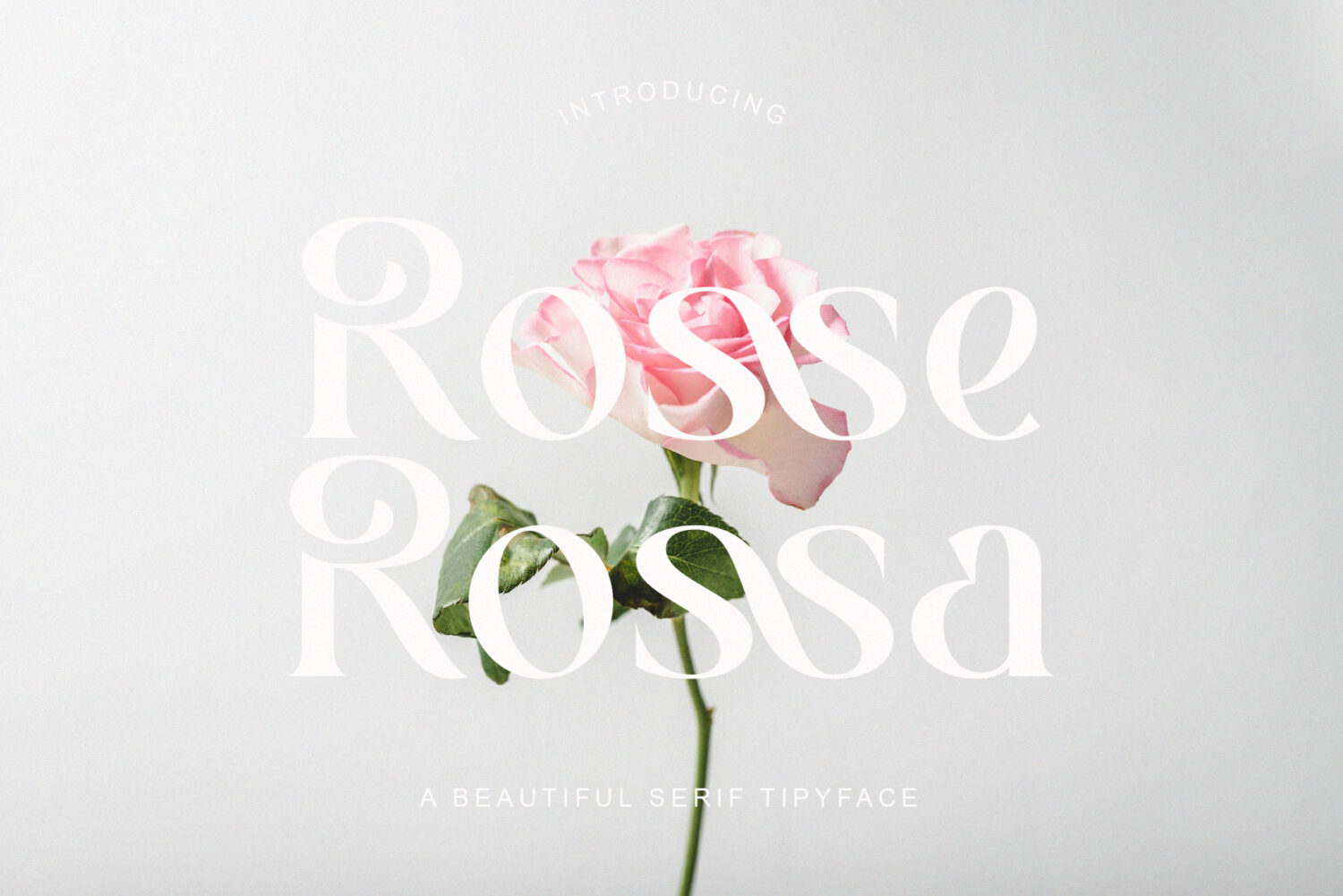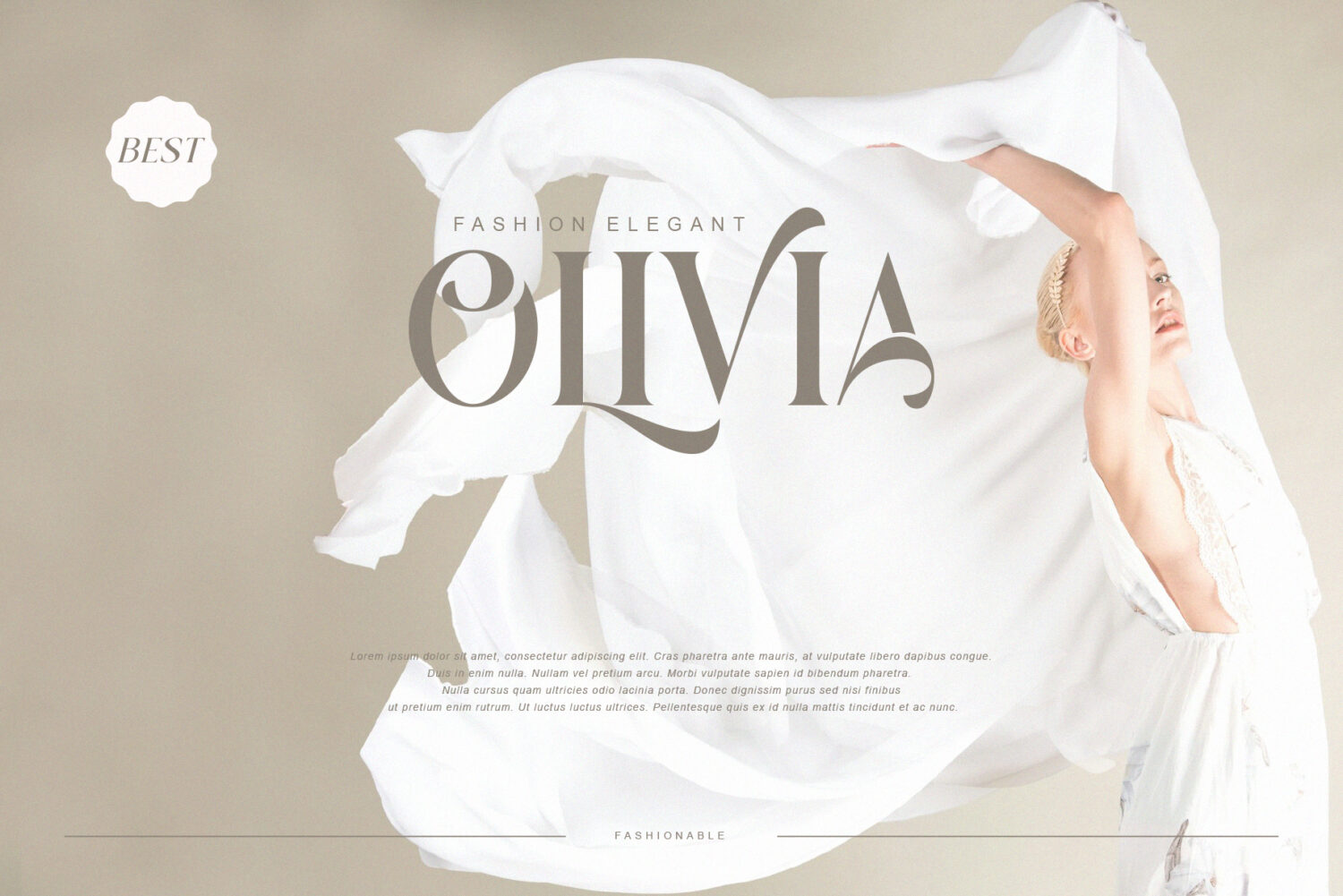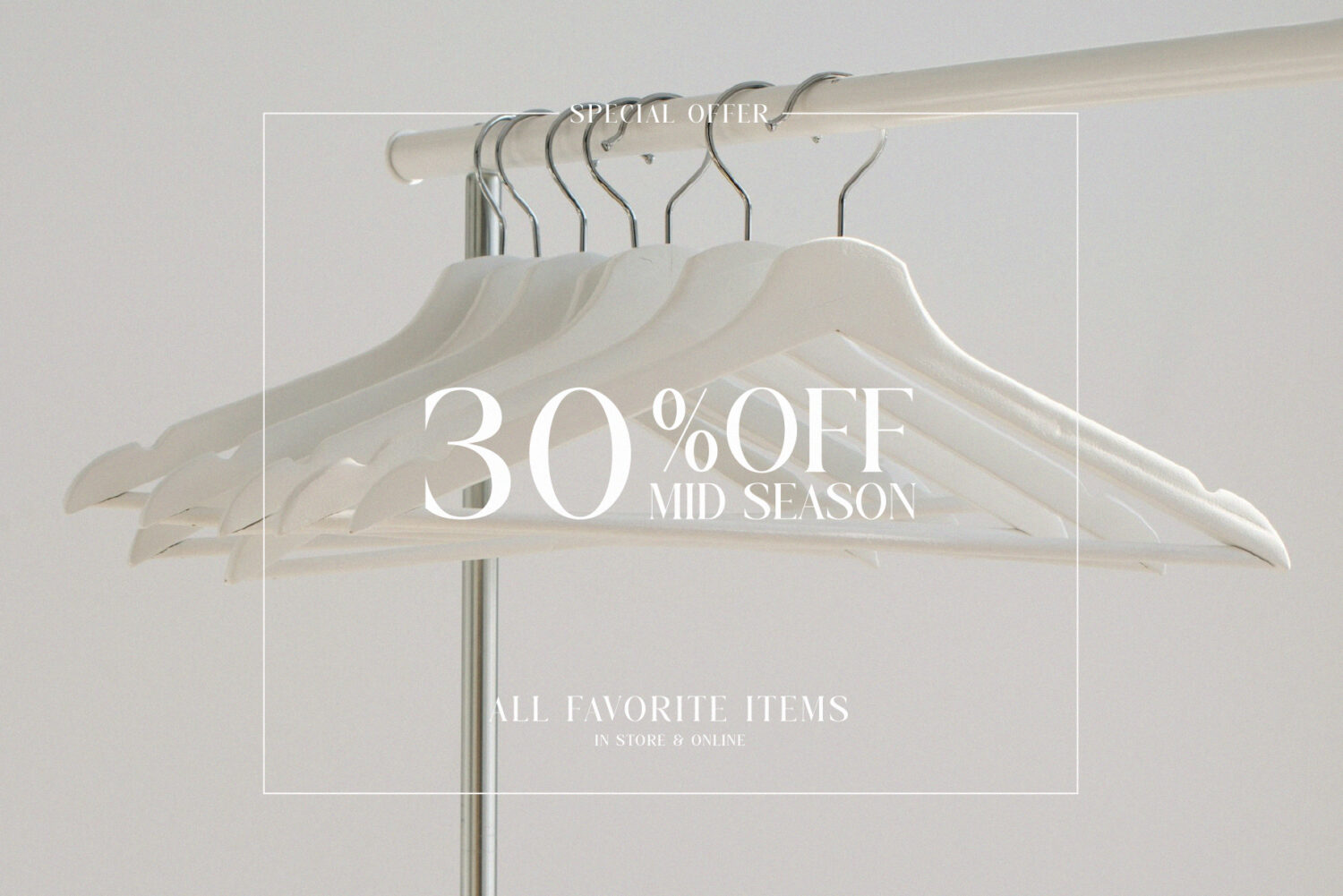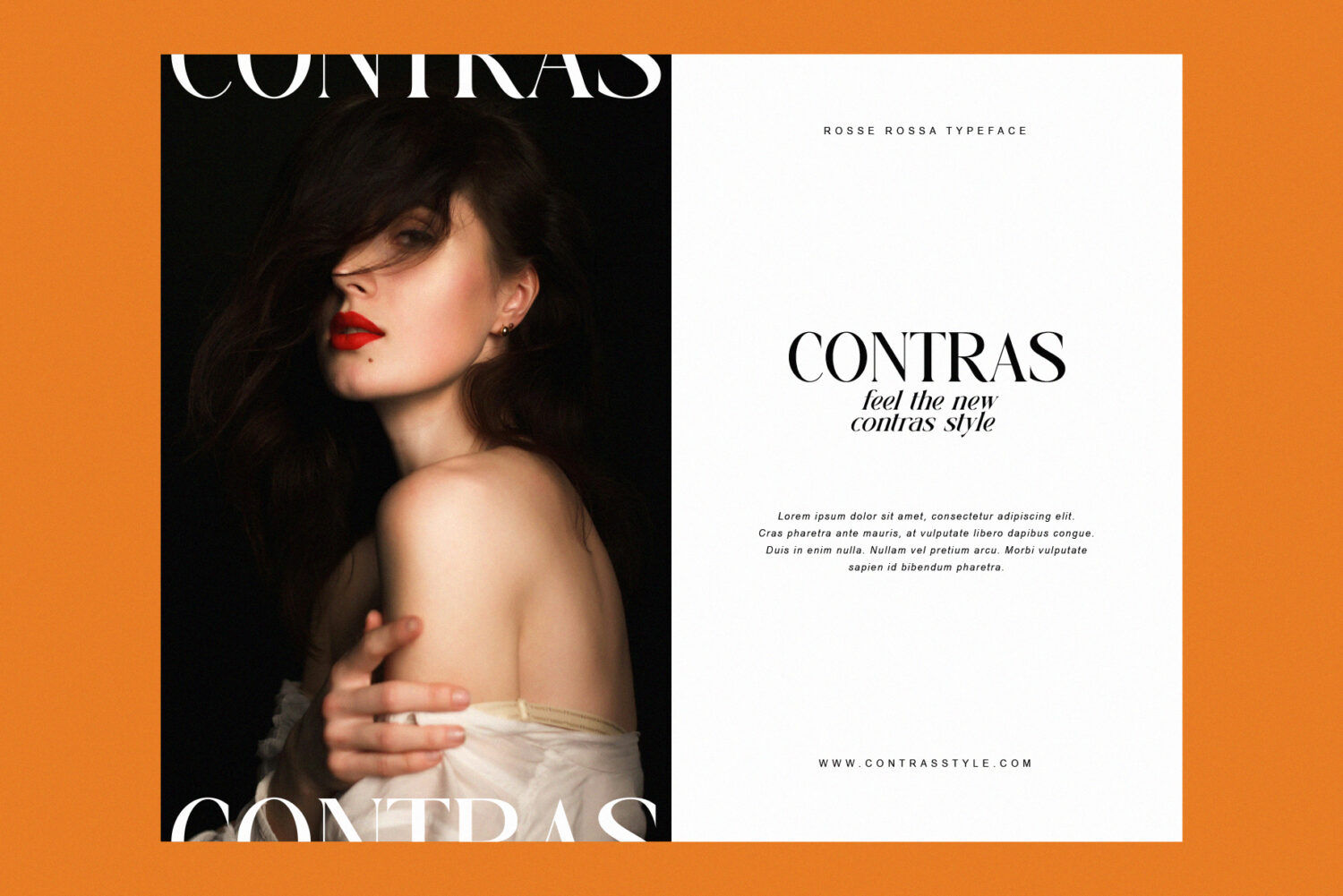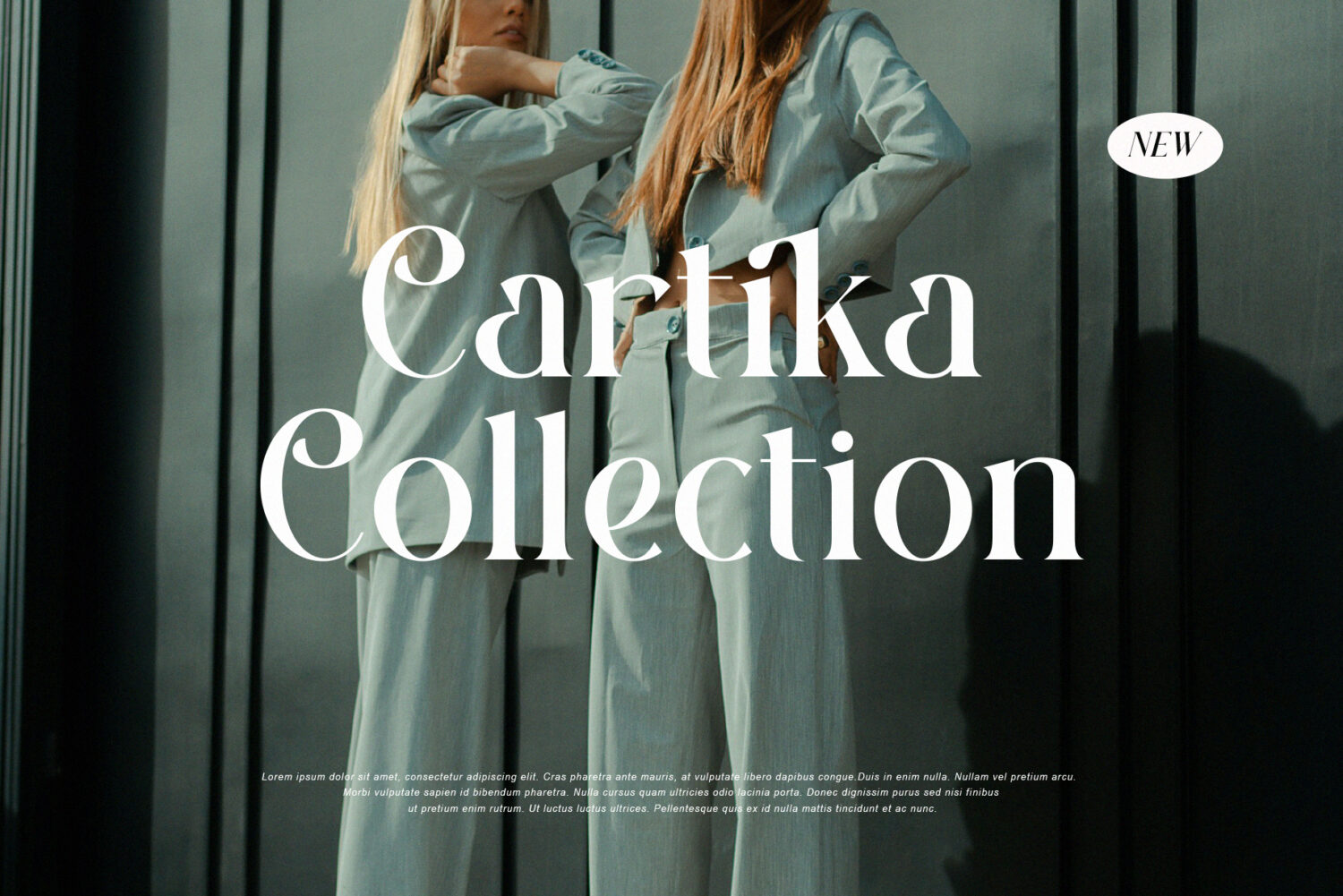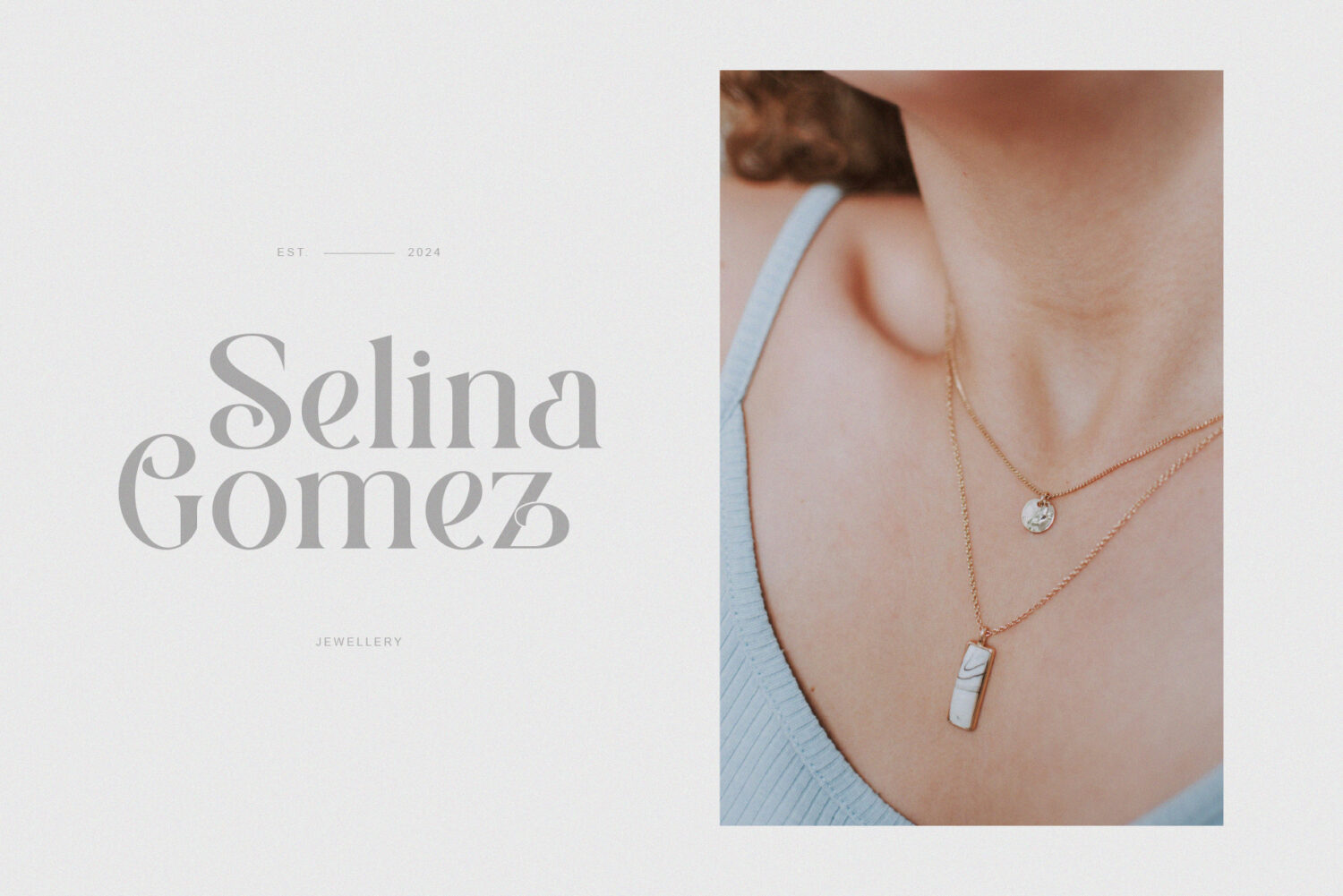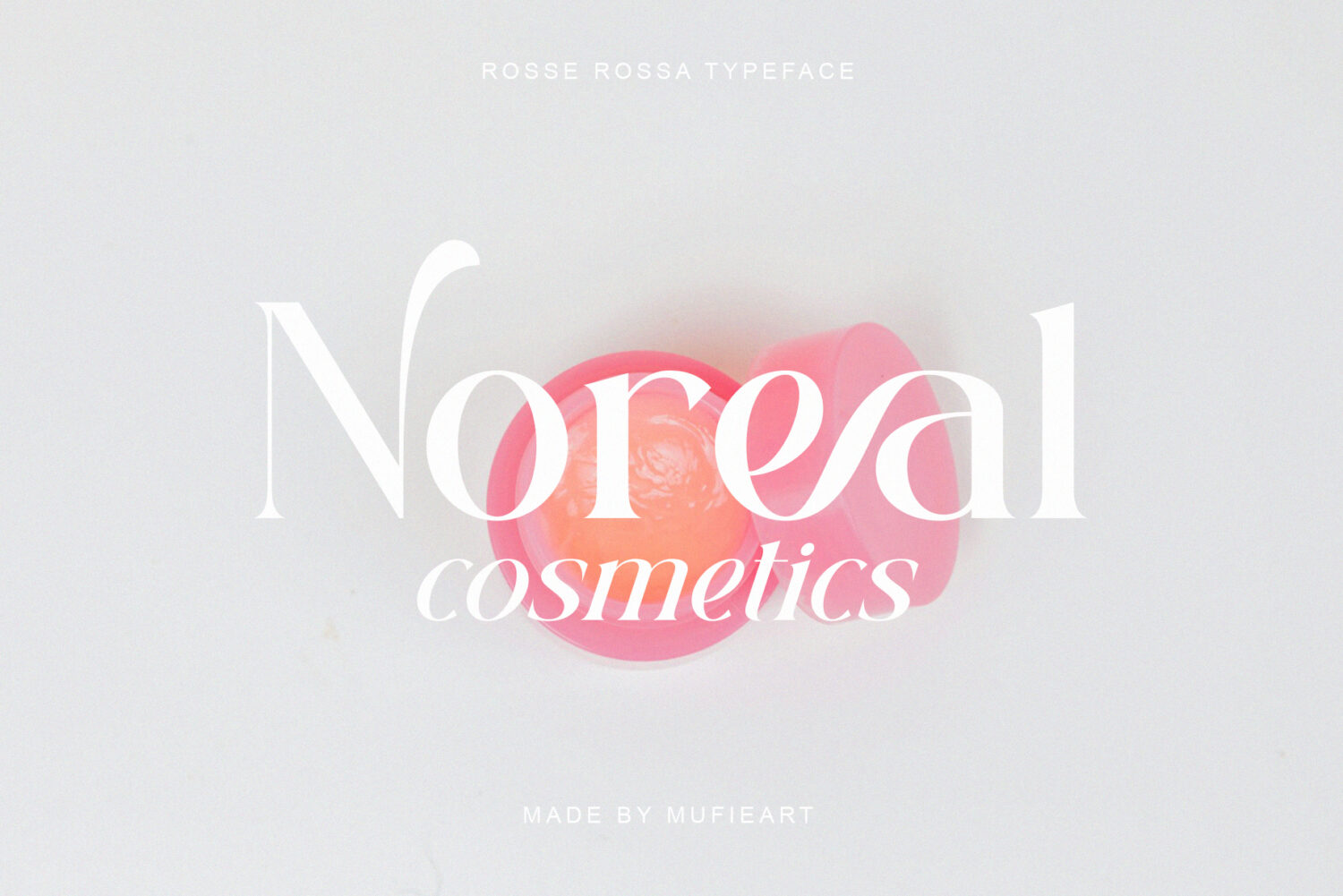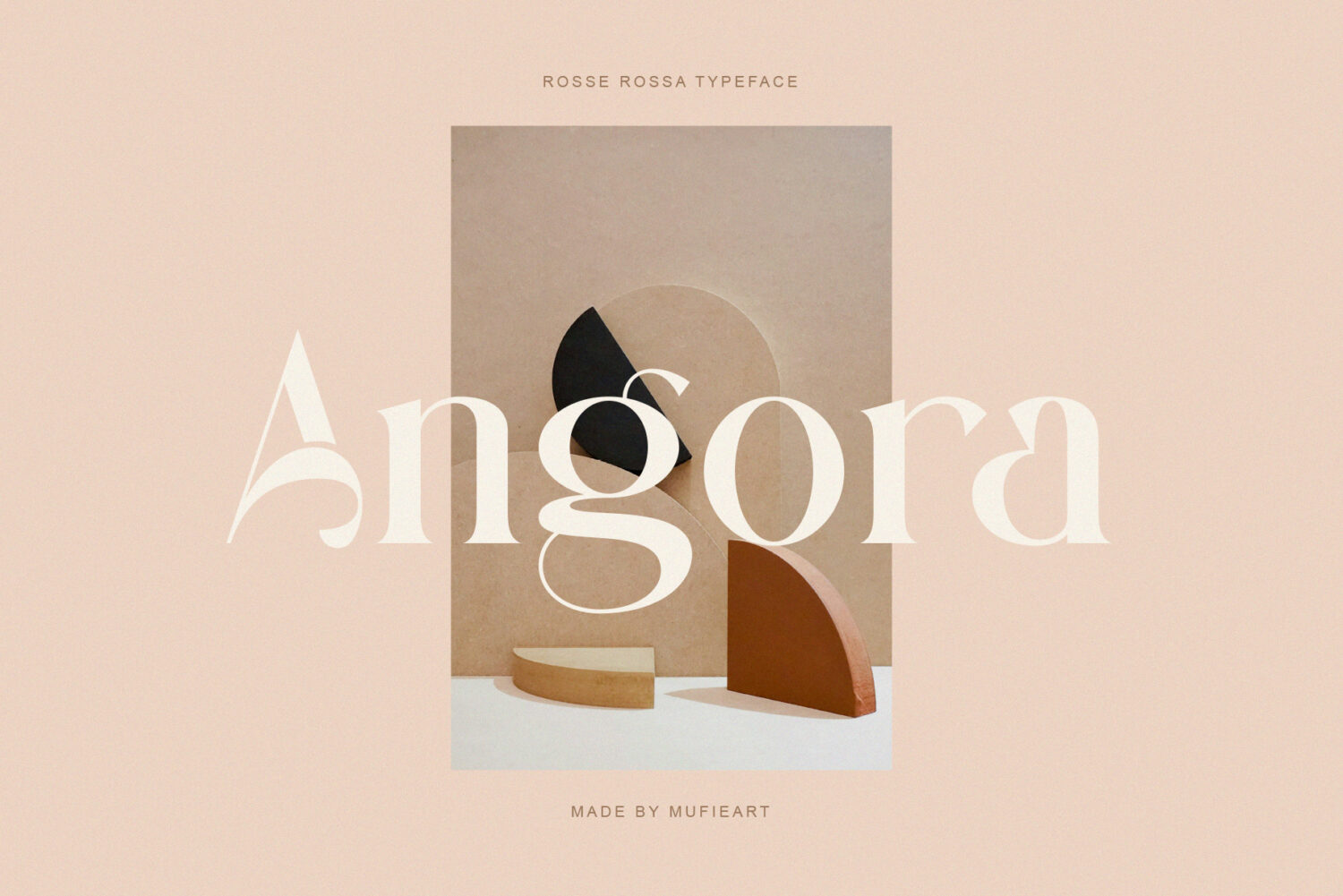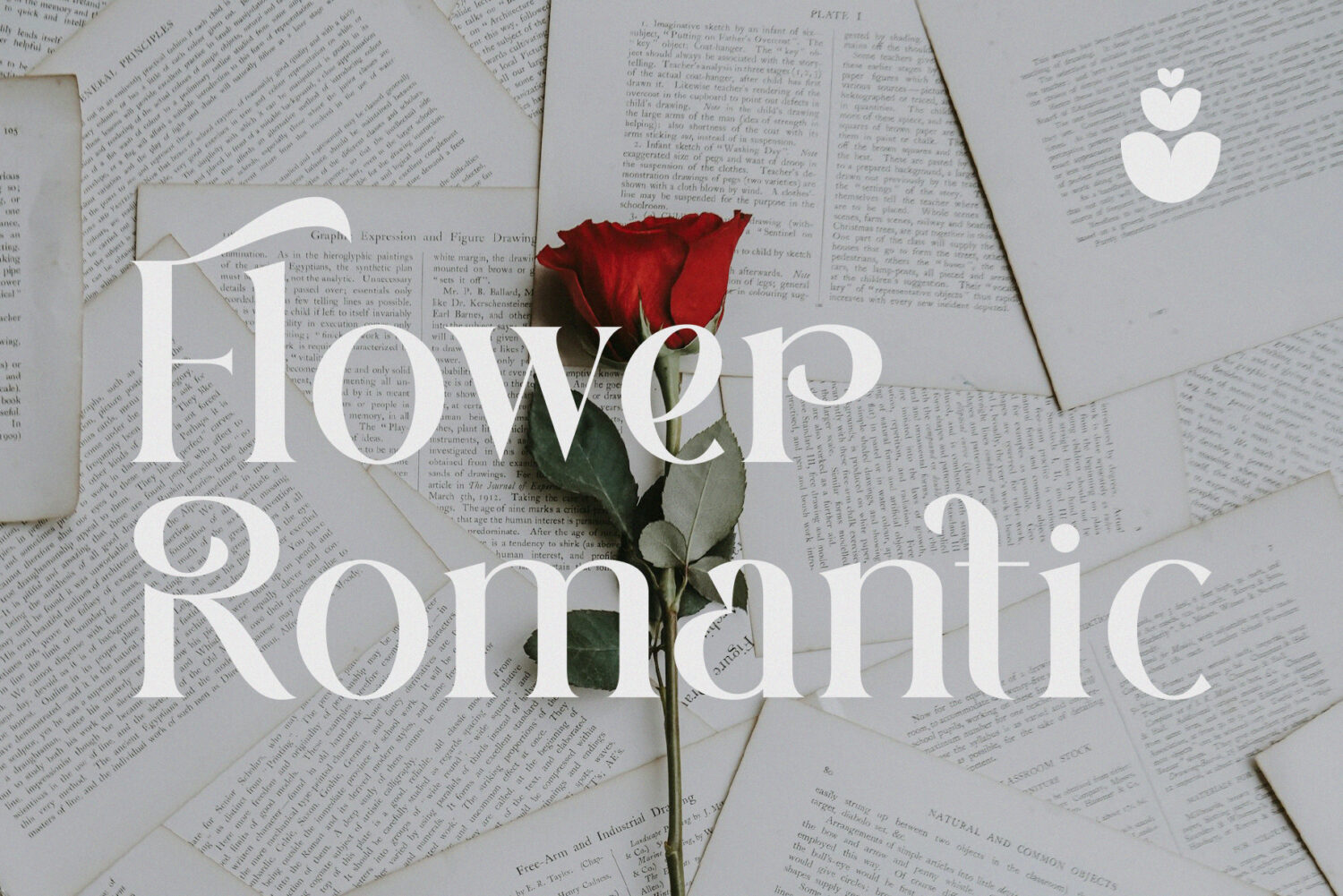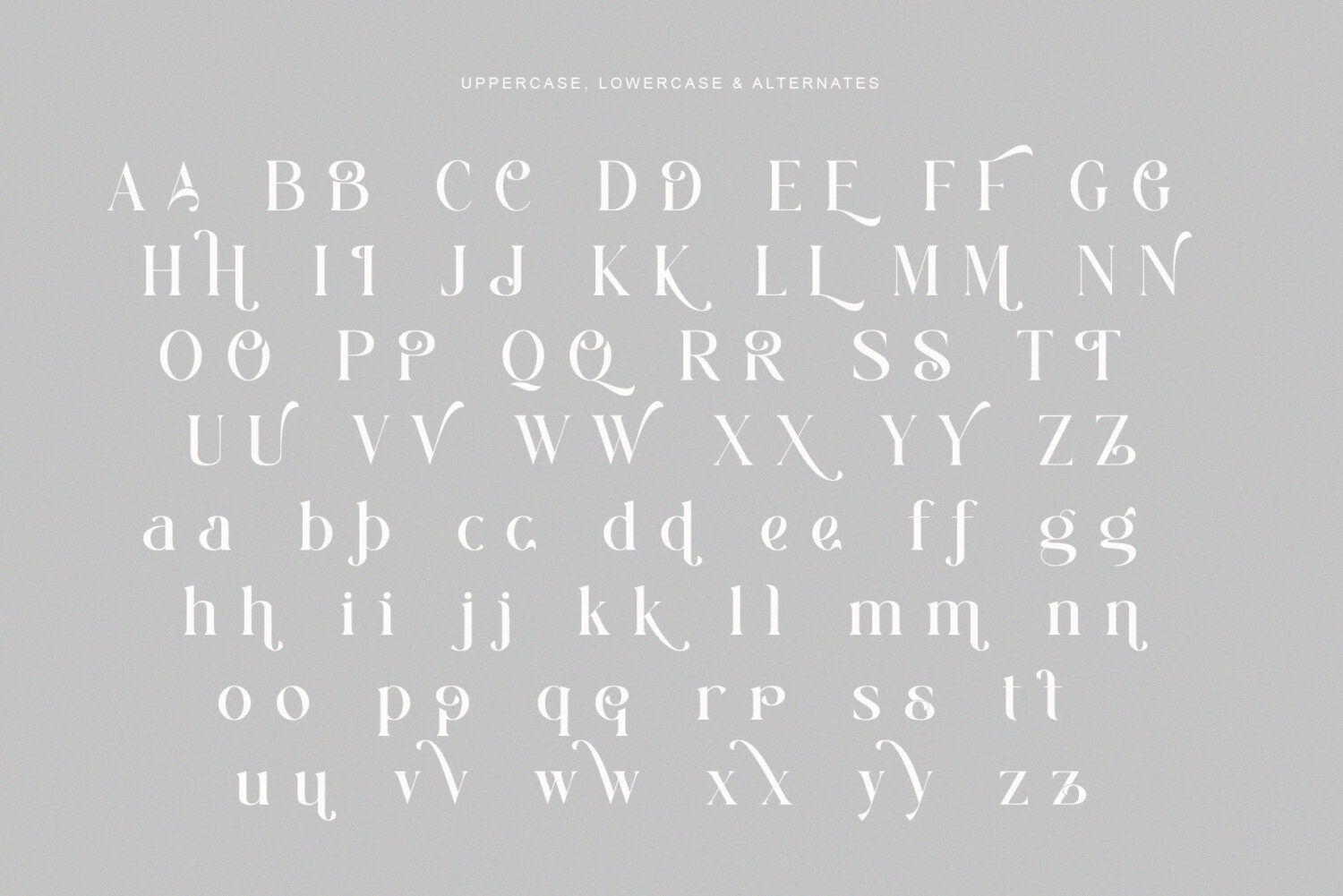
Introducing **Rosse Rossa** the elegant, beautiful, and modern Serif Typeface. With its modern and minimalist look, Rosse Rossa brings a luxurious, classy, and clean style to your projects such as websites, modern logos, brand identities, social media quotes, wedding stationery, magazines, and more!
Rosse Rossa features unique and classy capital letters A to Z and also comes with unique alternates and ligatures making Rosse Rossa a beautiful font that can be customized for various projects and jobs you want.
Rosse Rossa is perfect for: logos, brands, wedding invitations, business cards, greeting cards, posters, magazines, social media, agenda prints, and websites.